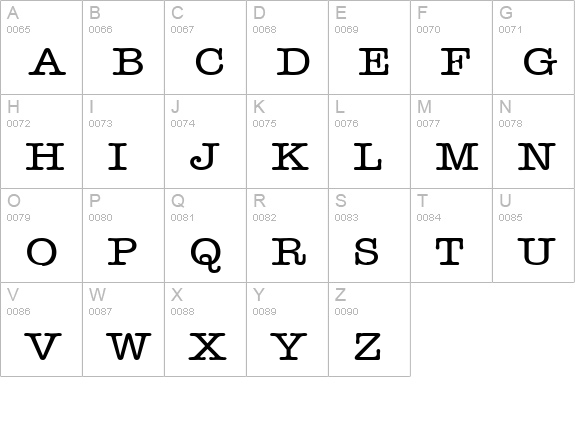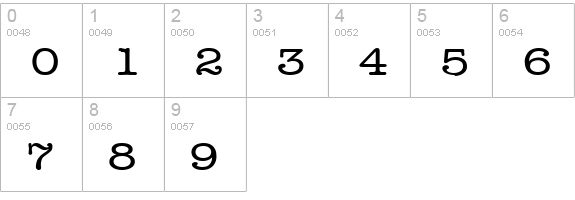
Headline Wide Normal Font Details
Headline Wide Normal is the standard, neutral, extended-width variant in the Headline typeface family \xE2\x80\x94 well suited to general body text, paragraphs, and standard typographic work.
The Headline Wide Normal font is a stunning display font that is perfect for creating eye-catching headlines and titles. Its wide and bold letterforms demand attention and make a powerful statement. This font is ideal for various design projects such as posters, advertisements, and branding materials. What sets the Headline Wide Normal font apart is that it is not only visually striking but also freely available to download at FontsMarket.com. This means that designers and creatives can access this incredible font without any cost, making it a valuable addition to their font library. With its clean and modern aesthetic, the Headline Wide Normal font is versatile and can be used in a wide range of design styles. Its bold and impactful look instantly grabs the viewer's attention, making it the perfect choice for headlines that need to make a strong impression. Whether you're designing a magazine cover, a website header, or a promotional banner, the Headline Wide Normal font will elevate your design to the next level. Its wide characters and balanced proportions ensure legibility while adding a touch of sophistication to any project. Download the Headline Wide Normal font for free at FontsMarket.com and unleash its powerful visual impact in your designs.